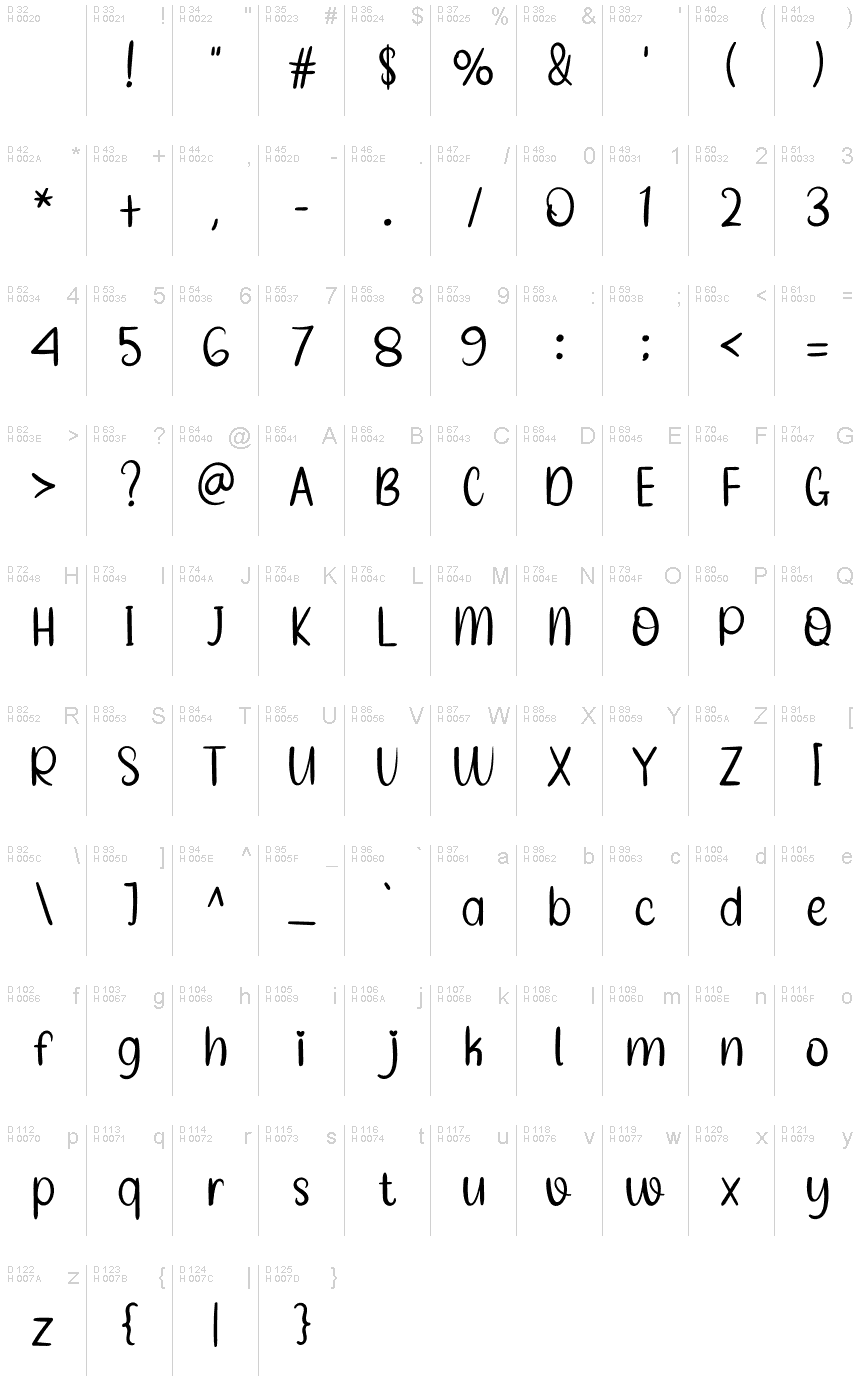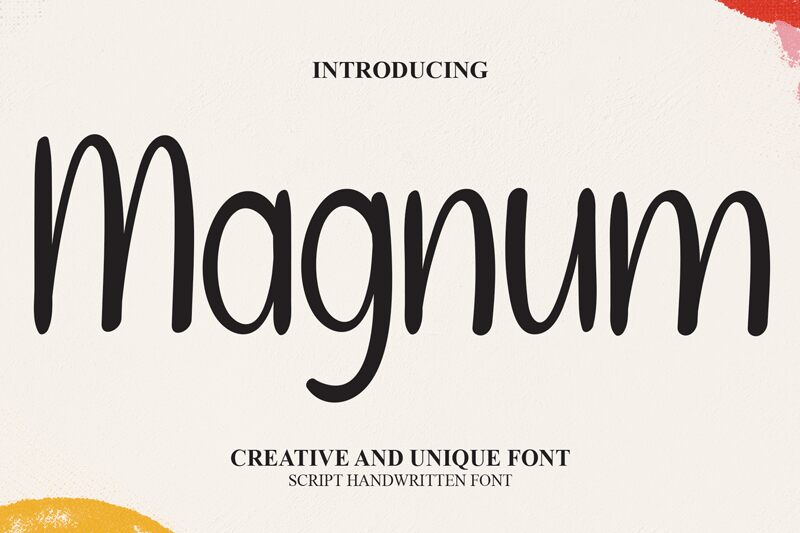
Magnum
Magnum, the latest creation from Belina Studio, is a stunning handwritten font that exudes elegance and sophistication. Its semi-light weight makes it perfect for projects that demand a touch of finesse without sacrificing readability. From wedding invitations to branding materials, Magnum is versatile enough to suit any occasion. The flowing curves of each letter lend themselves to a romantic or whimsical feel, while the sharp edges add a modern twist. Use Magnum for logos, product packaging, or anything that needs a personal touch. Let this typeface tell your story with its unique style and charm.
the latest style letters are perfect for wall displays, wedding invitations, social media post logos,
advertisements, product packaging, product designs, labels, photography, watermarks, invitations, stationery,
and any project that requires taste handwriting.